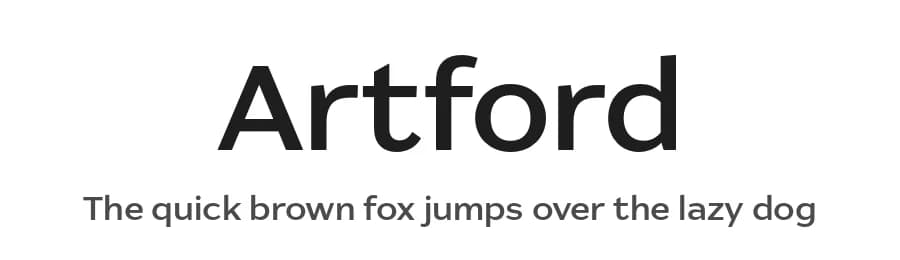
About Artford Font
Artford Specifications
| Font Family | Artford |
| Full Name | Artford Regular |
| Glyph Count | 682 glyphs |
| PostScript Name | Artford-Regular |
| Designer | Jan Tonellato |
Artford ships with 13 OpenType features you can switch on in apps that support them (Illustrator, InDesign, Affinity, Figma, CSS font-feature-settings).
- Slashed zero
- Stylistic sets (5)
Artford supports 317 languages.
Artford Font is a versatile sans-serif font that works for both headings and body text. Pair it with a contrasting serif or slab serif font to add visual interest and a clear distinction between titles and body copy.
Artford Font